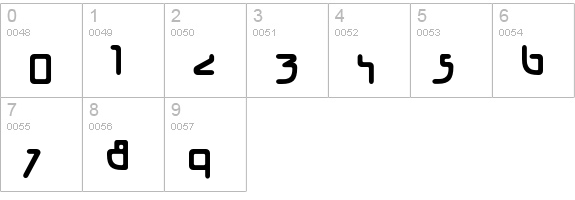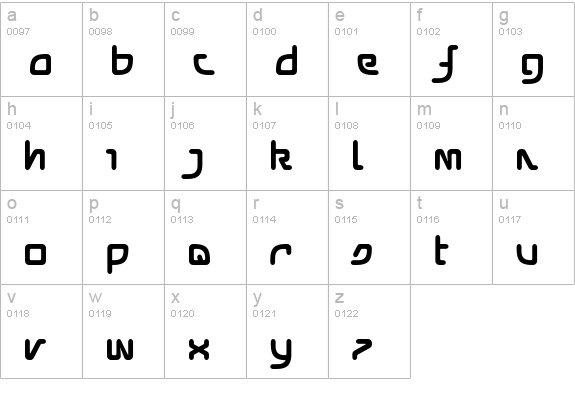
NeoTokio-One Font Details
NeoTokio-One is a modern and sleek font that combines futuristic elements with a touch of urban flair. With its sharp angles and bold lines, this typeface exudes a sense of energy and sophistication. Perfect for use in tech-related projects, branding, and editorial design, NeoTokio-One adds a contemporary edge to any layout. What's even better is that NeoTokio-One is available for free download at FontsMarket.com. This means you can add this stylish font to your design arsenal without breaking the bank. Whether you're working on a personal project or a professional assignment, NeoTokio-One is sure to make a bold statement and elevate your work to the next level. Download it today and unleash the power of this modern typeface in your designs.